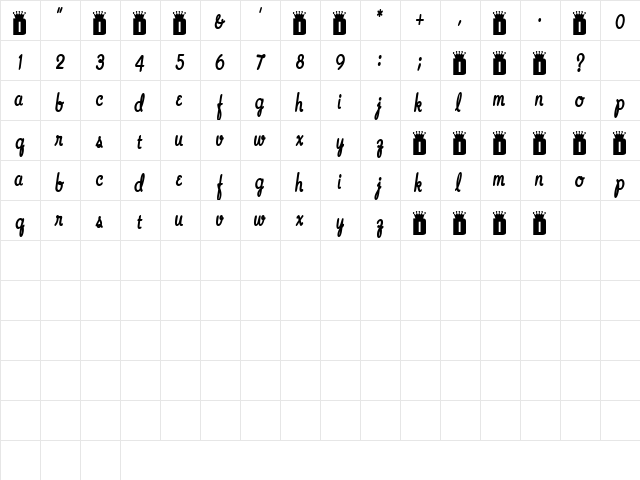
Ana Regular Free Font
Ana Regular
Design Context for Ana
Ana is a composed and adaptable typeface that performs quietly and consistently across a wide range of design contexts.